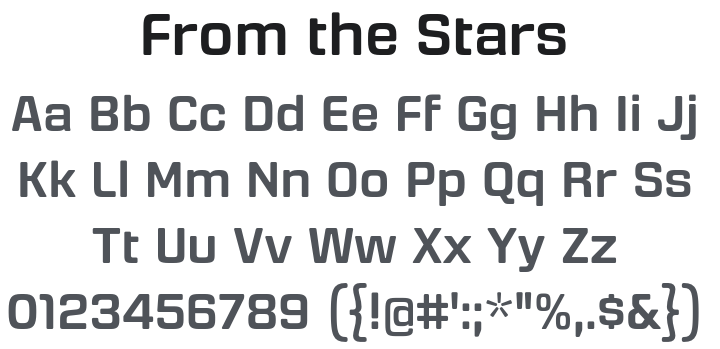
From the Stars Font Family
About From the Stars
From the Stars is a modern square sans-serif refined for today's design demands. Its rectilinear letterforms draw from the Eurostile tradition but soften the geometry with rounded, bullnosed corners for a warmer, more approachable presence. Closed apertures and compact proportions lend it a precise, engineered quality, while the subtle curvature in every stroke tempers the rigidity common in techno-inspired faces. The result is a type family that communicates technical sophistication without sacrificing readability or personality.